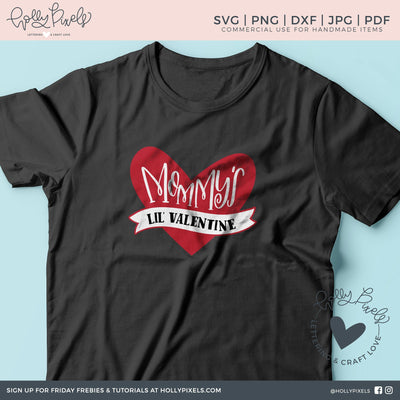
Mommy's Lil Valentine SVG File
Mommy's Lil Valentine shows everyone who your special one is. This valentine SVG for Valentine's Day or just because would look really cute on a onesie for your little one. Our heart design looks like a tattoo!